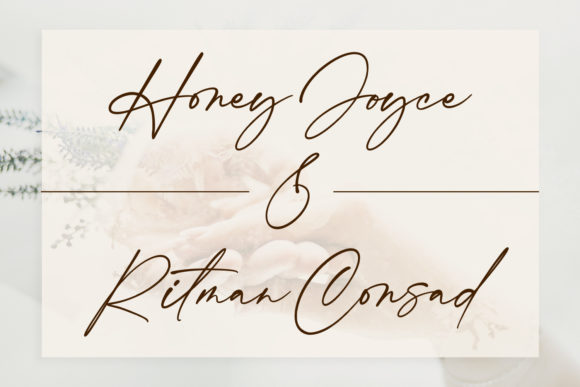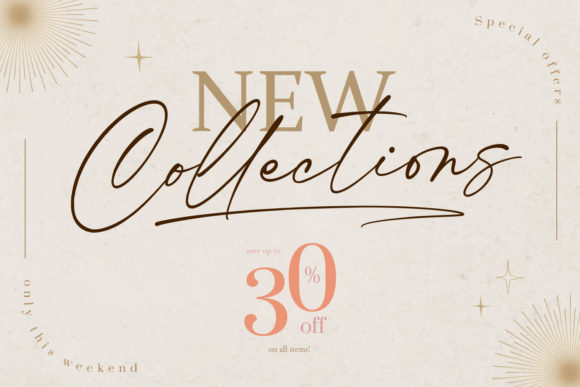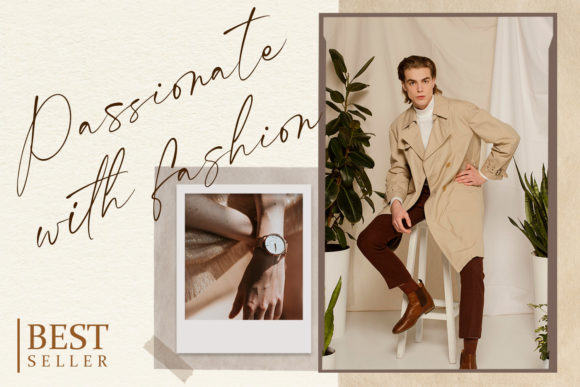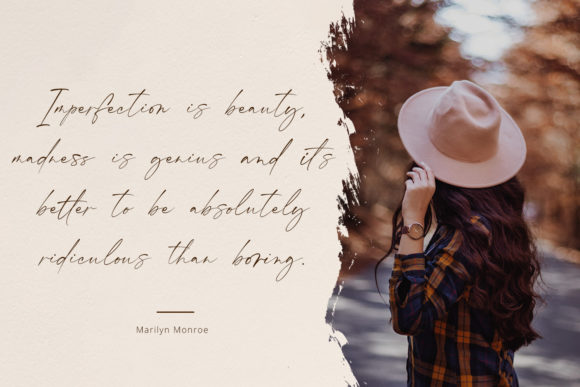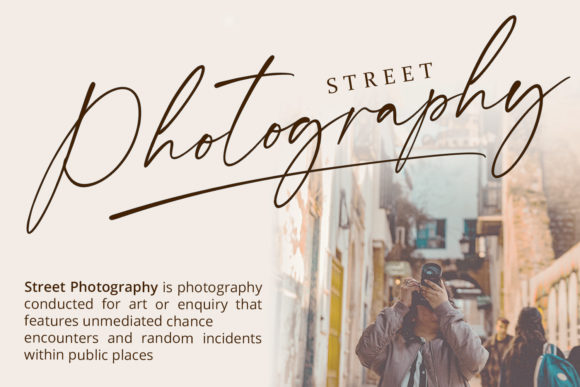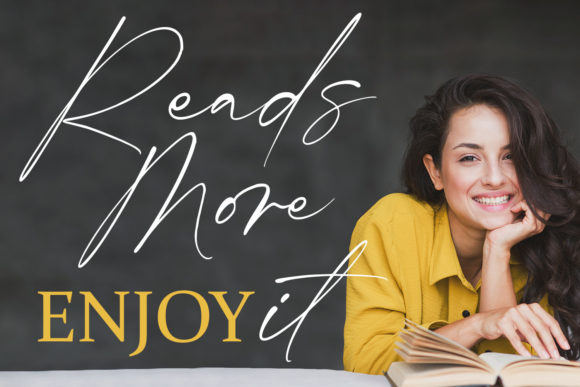
Introducing Committing Font: The Epitome of Elegance and Sophistication
In the realm of typography, few fonts manage to convey the essence of elegance and class as effectively as Committing Font. This lovely and delicate script font has been meticulously crafted to exude an air of refinement, making it an ideal choice for designers and crafters seeking to add a touch of sophistication to their projects. One of the standout features of Committing Font is its PUA (Private Use Area) encoding, which allows users to access all the glyphs and swashes with ease, thereby unlocking a world of creative possibilities.
The Beauty of Script Fonts
Script fonts have long been a favorite among designers and crafters due to their unique ability to add a personal touch to any project. These fonts, characterized by their flowing and connected letters, can instantly elevate the aesthetic appeal of a design, making it more visually engaging and emotive. Committing Font, with its delicate and elegant script, is no exception. Its beautiful letterforms are designed to evoke a sense of luxury and refinement, making it perfect for a wide range of applications, from wedding invitations and branding materials to packaging and digital media.
PUA encoding is a feature that sets Committing Font apart from many other fonts available in the market. PUA stands for Private Use Area, a section of the Unicode standard that allows font creators to include additional characters and glyphs that are not part of the standard Unicode character set. This means that with Committing Font, users can access a wide range of glyphs and swashes that can be used to add more flair and personality to their designs. Whether you’re looking to create a custom logo, design a social media graphic, or craft a beautiful wedding invitation, PUA encoding gives you the flexibility to experiment with different styles and effects.
Features of Committing Font
- Elegant and Delicate Script: Committing Font boasts a beautiful, flowing script that adds a touch of elegance and class to any project.
- PUA Encoded: With PUA encoding, users can easily access all glyphs and swashes, allowing for greater creative freedom.
- Wide Range of Applications: Suitable for various design projects, including wedding invitations, branding materials, packaging, digital media, and more.
- User-Friendly: Designed to be easy to use, even for those with limited design experience.
Tips for Using Committing Font
- Experiment with Glyphs and Swashes: Take advantage of the PUA encoding to explore different glyphs and swashes. This can help you create unique and personalized designs.
- Pair with Complementary Fonts: Combine Committing Font with other fonts that complement its elegant style. This can add depth and interest to your designs.
- Adjust Font Sizes and Colors: Play around with different font sizes and colors to create visual hierarchy and emphasize key elements in your design.
Committing Font is a versatile and elegant script font that offers designers and crafters a powerful tool for creating sophisticated and visually appealing designs. With its PUA encoding, beautiful letterforms, and ease of use, it’s an excellent choice for anyone looking to add a touch of class and refinement to their projects. Whether you’re a seasoned designer or just starting out, Committing Font is sure to inspire your creativity and help you achieve your design goals.